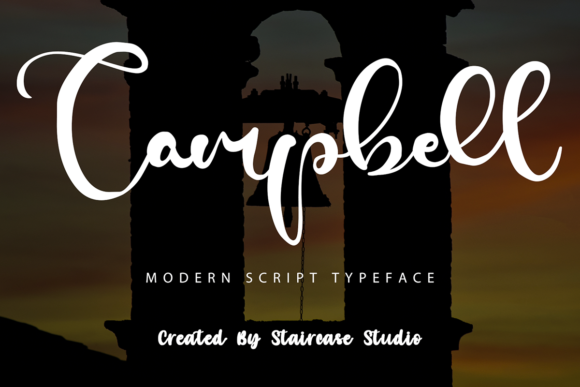
Enter the Campbell Font, a modern and beautiful script font that’s perfect for any creative project. With its elegant curves and sophisticated feel, Campbell Font is ideal for logotype, branding design, logo design, and digital lettering arts. Whether you’re working on a t-shirt design, a poster, or a magazine layout, this versatile font is sure to elevate your work.
What sets the Campbell Font apart is its flexibility and versatility. With a collection of letters and numbers at your disposal, you can create unique and captivating designs that truly reflect your brand or style. As a designer, having the right font can be a game-changer – and the Campbell Font is definitely worth considering for your next project.
Campbell Font Key Features
- Unique Characteristics: Campbell Font features a distinctive, elegant script with a mix of cursive and italic styles, making it suitable for formal and creative writing applications.
Campbell Font Review
As a designer, I was excited to dive into the Campbell Font and see what it had to offer. Here’s my honest take.
- Playful yet elegant feel: The Campbell Font strikes a great balance between being fun and sophisticated, making it perfect for a wide range of projects.
- Good legibility: The font is well-designed for body text, making it easy to read and understand.
- Unique character: The Campbell Font has a distinct personality that sets it apart from other fonts in its class.
- Limited versatility: While the Campbell Font is great for body text, it may not be the best choice for headlines or titles, as it can get a bit lost.
- Not ideal for small sizes: The font’s design can become a bit fuzzy when used at small sizes, which may affect readability.
Overall, the Campbell Font is a solid choice for designers looking for a unique and elegant font. While it has some limitations, its strengths make it a great addition to any project. With a bit of caution and consideration for its limitations, the Campbell Font can help elevate any design to the next level.
Tips for Getting the Most Out of Campbell Font
Use Campbell Font for headings and titles to add a touch of elegance and sophistication to your designs. Pair it with a clean and simple font for body text to create a balanced and harmonious look.
Campbell Font is perfect for:
- Business cards and branding materials
- Food and beverage labels
- Artistic and creative projects